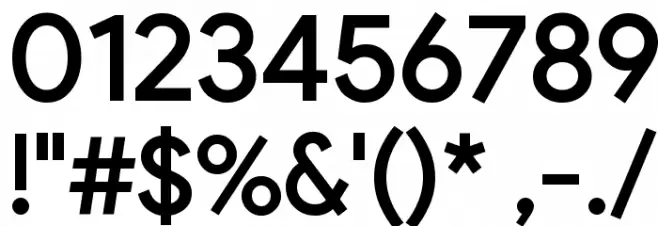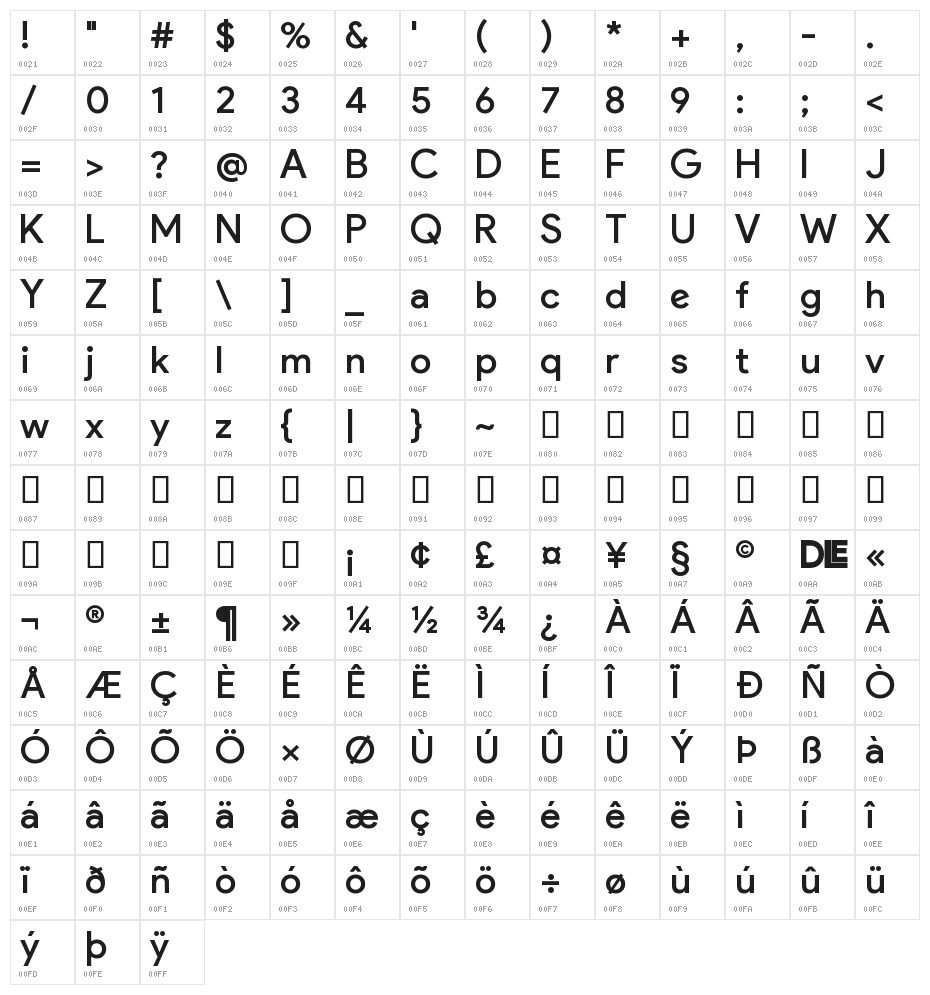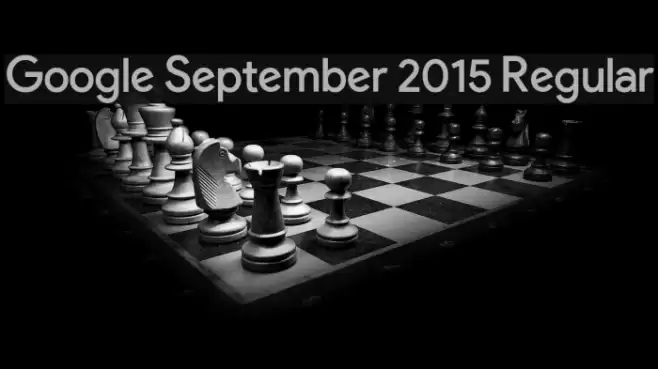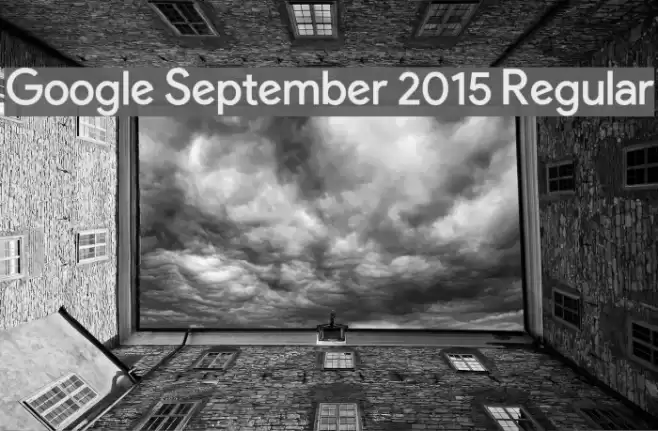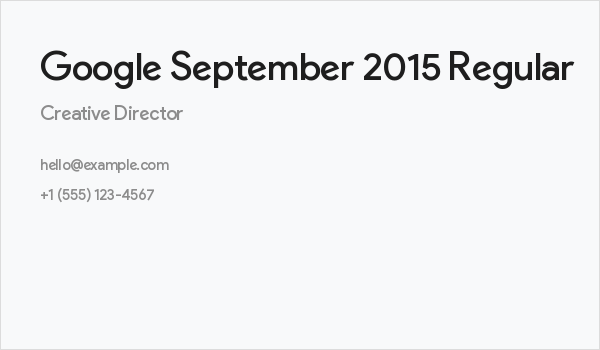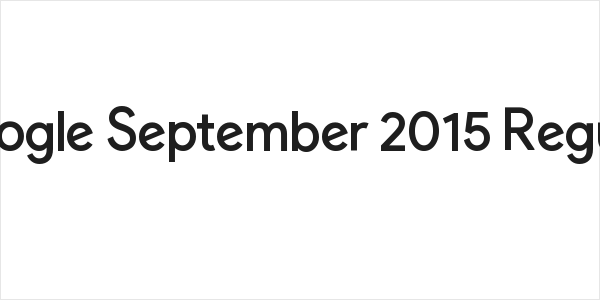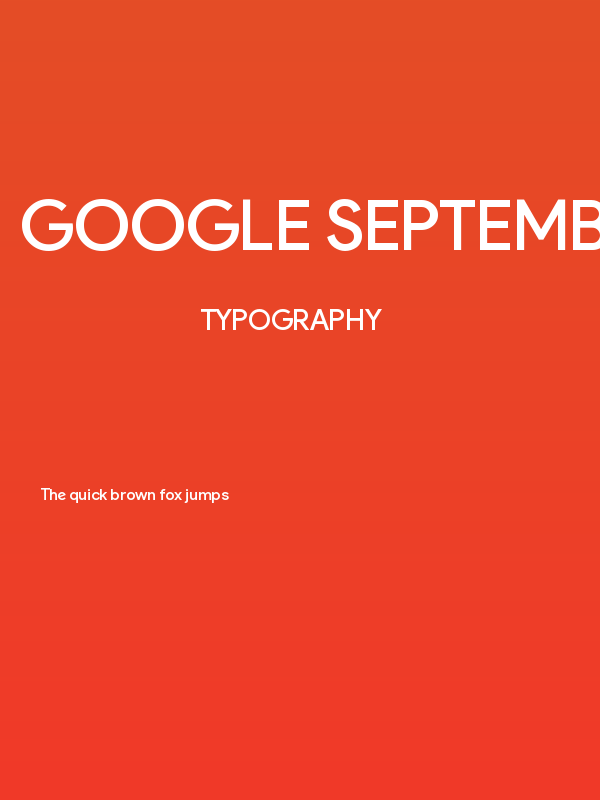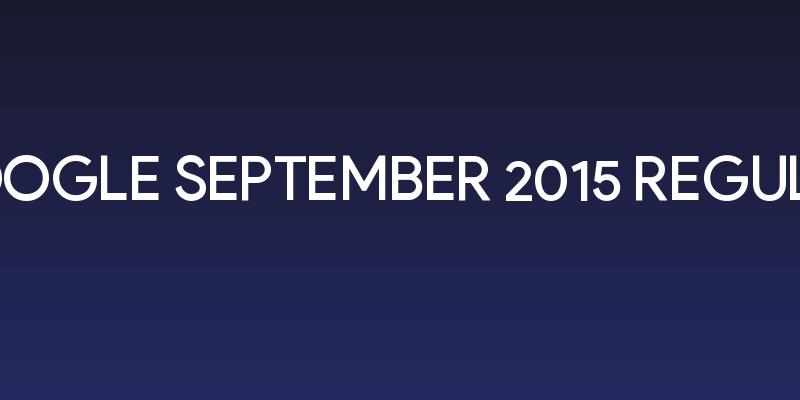
Google September 2015 Regular Font
Google September 2015 Regular Description
This font features a clean and modern sans-serif design, characterized by its simplicity and readability. The letters are evenly spaced with consistent stroke widths, providing a balanced and harmonious appearance. The uppercase and lowercase letters maintain a uniform height, contributing to its legibility. The numerals are clear and straightforward, matching the overall aesthetic of the font. Special characters are well-integrated, ensuring versatility in various applications. This font's design is suitable for digital and print media, offering a professional and contemporary look.
Use CaseHeadlines, Body text, Logos
Proposed ProjectsIdeal for web design, corporate branding, user interfaces, and editorial content.